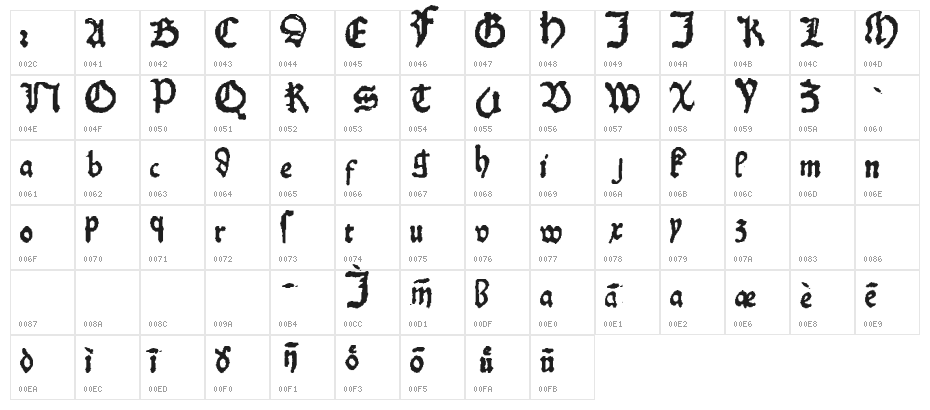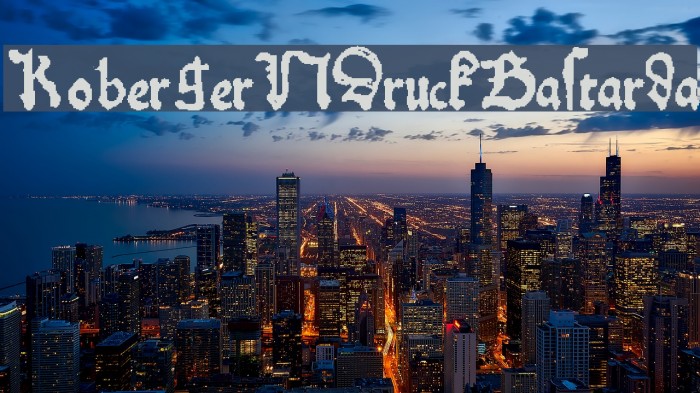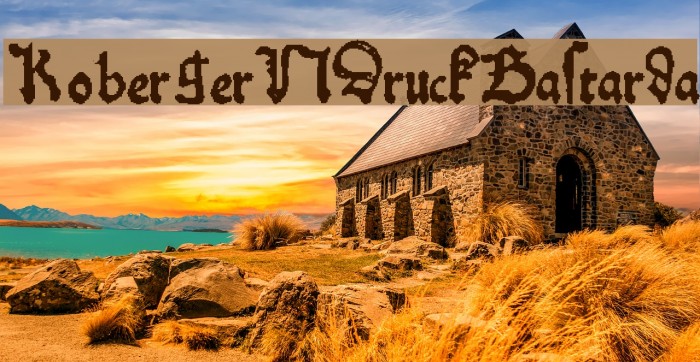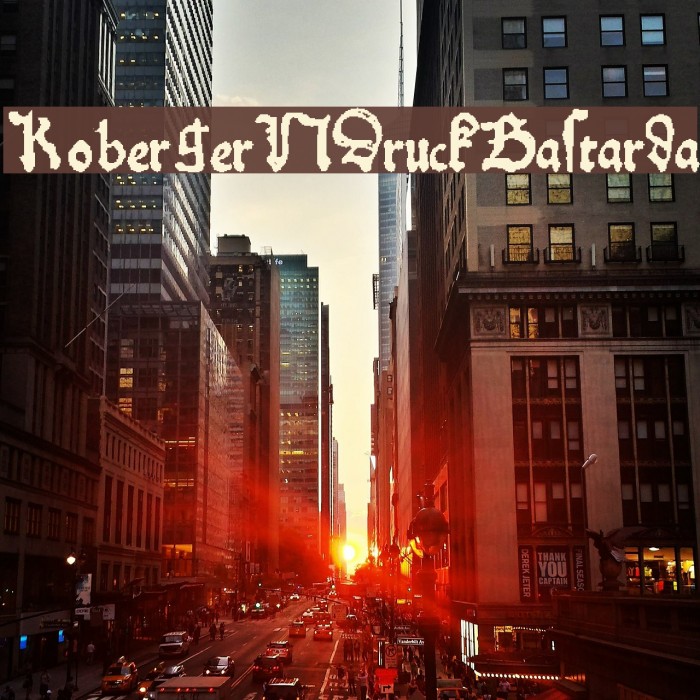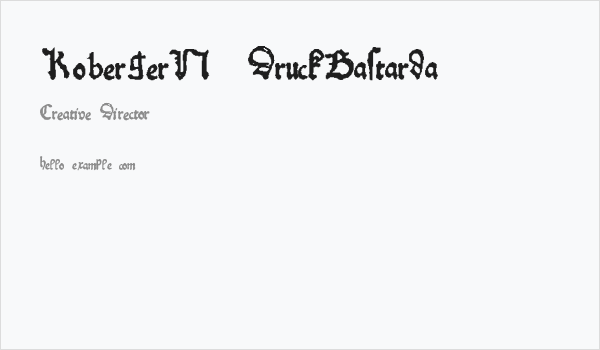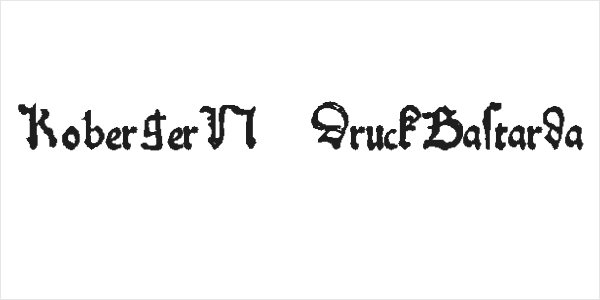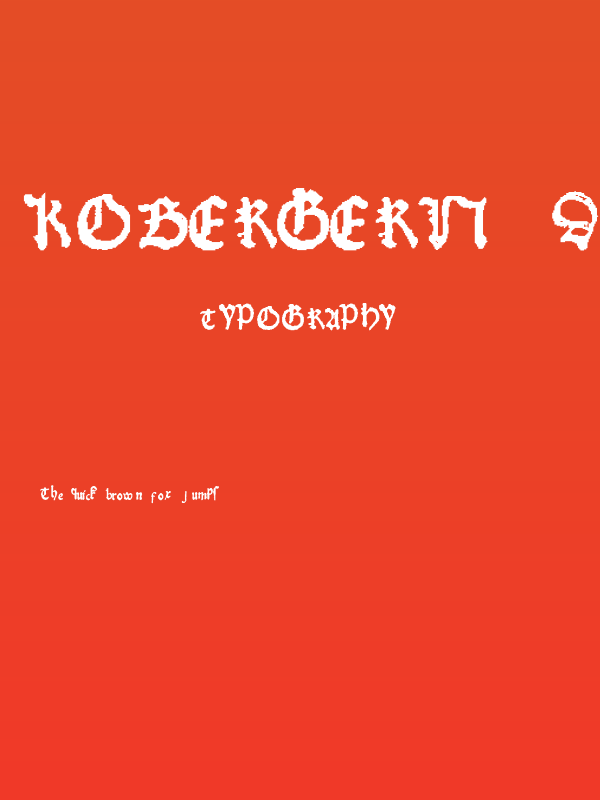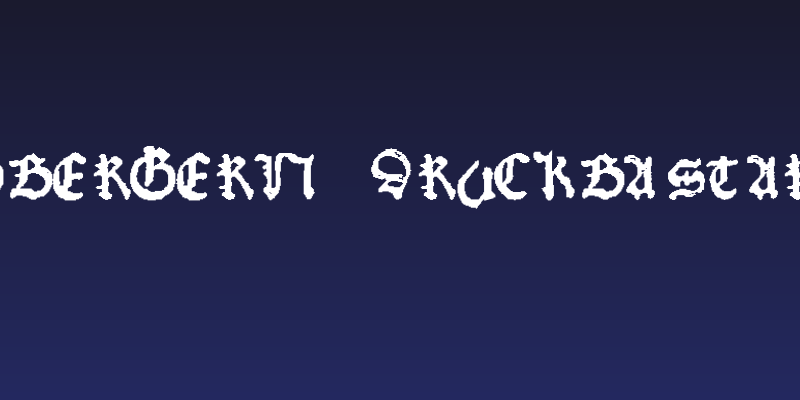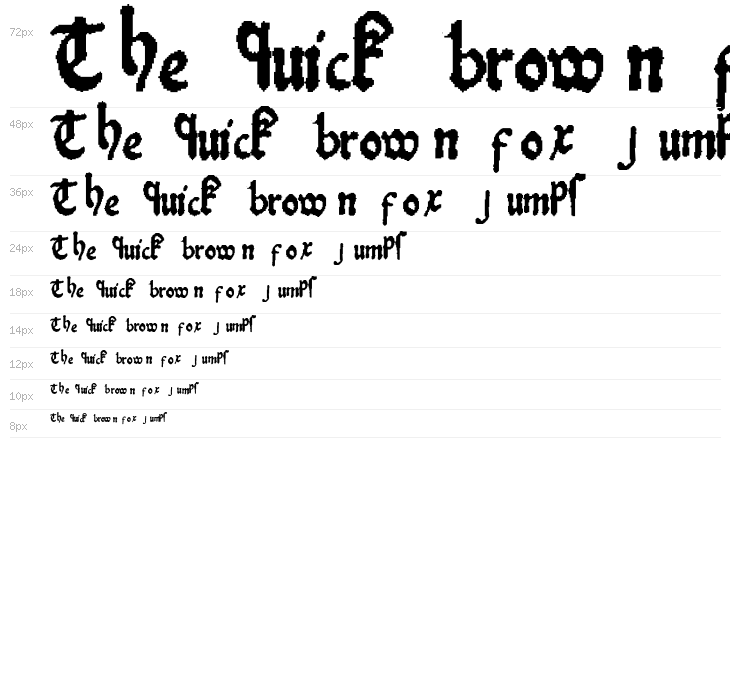
KobergerN10DruckBastarda Font
KobergerN10DruckBastarda Description
This font exhibits a traditional and historical style reminiscent of medieval script. The characters are ornate and intricate, with a distinct Gothic influence that is evident in the sharp angles and elaborate flourishes. The uppercase letters are bold and commanding, while the lowercase letters maintain a consistent style with slightly more subtle detailing. The numbers and special characters follow the same aesthetic, ensuring a cohesive look across all elements. This font is ideal for projects that require a touch of antiquity and elegance, such as historical documents, themed event invitations, or decorative signage.
| Use Case | Headlines, Decorative text, Themed projects |
| Proposed Projects | Ideal for historical documents, themed event invitations, decorative signage, or any project requiring a medieval touch. |